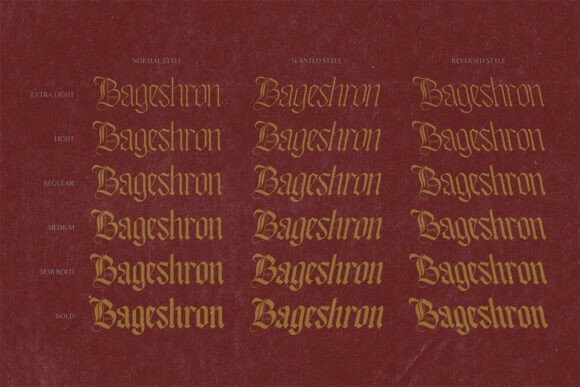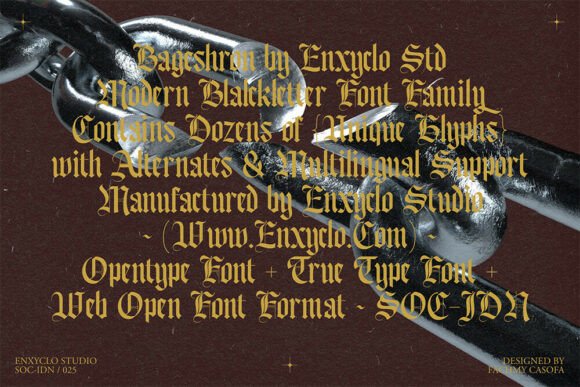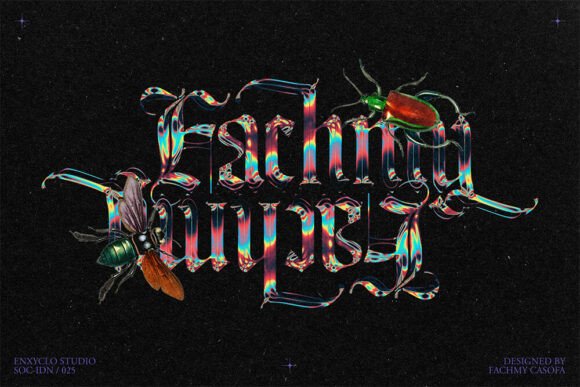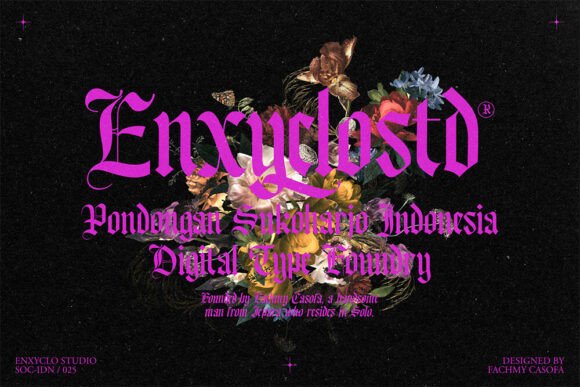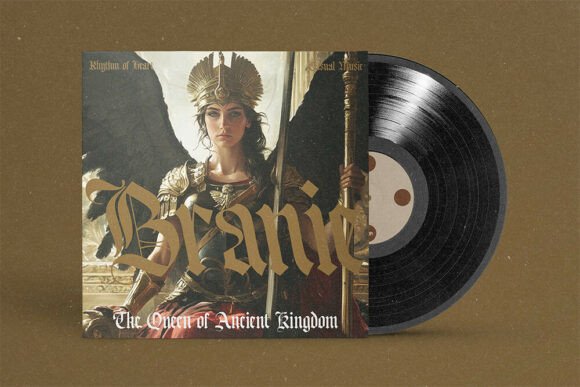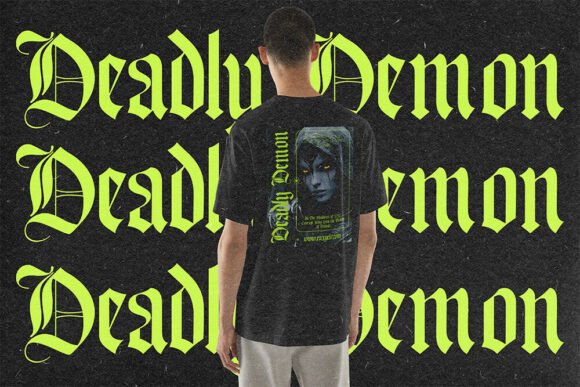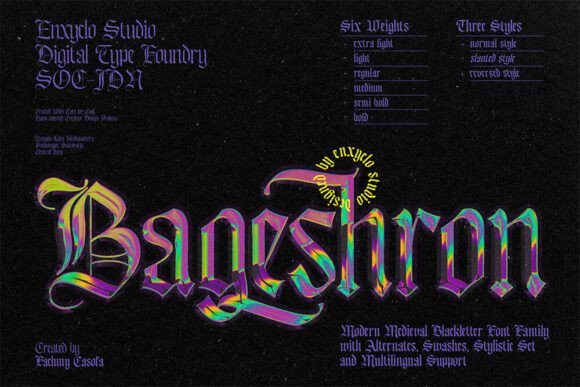
🗡️ Bageshron: The Modern Medieval Blackletter Font Family
Imagine a font that seamlessly fuses the medieval allure of the past with the contemporary appeal of the present. Welcome to Bageshron, a modern medieval blackletter font family that brings a touch of nostalgia and sophistication to your design projects. In this article, we’ll explore the world of Bageshron, its history, features, and the endless possibilities it offers for designers, crafters, and creative enthusiasts.
A Brief History of Blackletter Fonts
Blackletter fonts have their roots in the Middle Ages, dating back to the 12th century. Characterized by their dramatic flourishes and intricate details, blackletter typefaces were originally used for illuminated manuscripts and Gothic texts. Over the centuries, blackletter fonts evolved, influencing various design styles, from medieval manuscripts to modern tattoo art.
Introducing Bageshron: A Modern Take on Medieval Elegance
Bageshron is a modern medieval blackletter font family that pays homage to its historical roots while embracing contemporary design sensibilities. This versatile typeface boasts a unique blend of medieval flair and modern sophistication, making it perfect for a wide range of design projects. Whether you’re creating a medieval-themed website, a heavy metal album cover, or a stylish logo, Bageshron’s innovative aesthetics ensure your creations stand out from the ordinary.
Key Features of Bageshron Font
- Medieval Flair: Bageshron’s design is rooted in traditional blackletter fonts, with intricate details and dramatic flourishes that evoke a sense of nostalgia and elegance.
- Modern Twist: The font’s modernized approach ensures it remains legible and versatile, suitable for a wide range of design applications.
- Versatility: Bageshron is perfect for various design projects, including medieval themes, modern-classic vibes, dark fashion brands, heavy metal album art, unique tattoos, and sophisticated editorial design.
- Traditional and Stylized: The font allows for both traditional, evocative headlines and cutting-edge, stylized logos, making it exceptionally versatile for designers.
Design Applications for Bageshron Font
Bageshron’s versatility makes it an excellent choice for various design projects, including:
- Web Design: Create a stunning website with a medieval twist or a modern-classic vibe using Bageshron’s elegant and legible typography.
- Print Design: Use Bageshron for captivating posters, flyers, and brochures that demand attention and evoke a sense of sophistication.
- Logo Design: Craft unique and memorable logos for dark fashion brands, heavy metal bands, or any business that requires a touch of medieval elegance.
- Tattoo Art: Bageshron’s intricate details and dramatic flourishes make it an excellent choice for unique tattoo designs.
- Editorial Design: Use Bageshron for sophisticated editorial design, including magazines, newspapers, and books that require a touch of elegance and sophistication.
Why Choose Bageshron Font?
Bageshron offers a unique combination of medieval allure and modern sophistication, making it an excellent choice for designers and crafters seeking a versatile and elegant font. With Bageshron, you can:
- Add a Touch of Elegance: Bring a sense of sophistication and refinement to your design projects with Bageshron’s intricate details and dramatic flourishes.
- Stand Out from the Ordinary: Use Bageshron’s innovative aesthetics to create unique and memorable designs that demand attention.
- Save Time: Bageshron’s versatility and legibility save you time and effort in finding the perfect font for your design projects.
| Author | Enxyclo |
Bageshron is a modern medieval blackletter font family that offers a unique blend of medieval elegance and contemporary sophistication. Its versatility, legibility, and innovative aesthetics make it an excellent choice for designers, crafters, and creative enthusiasts seeking to add a touch of refinement and elegance to their design projects. Whether you’re creating a medieval-themed website, a heavy metal album cover, or a stylish logo, Bageshron ensures your creations stand out with a finesse of their own.
Discover the world of Bageshron and unleash your creativity with this exceptional font family. Get ready to craft stunning designs that evoke a sense of nostalgia, sophistication, and elegance.